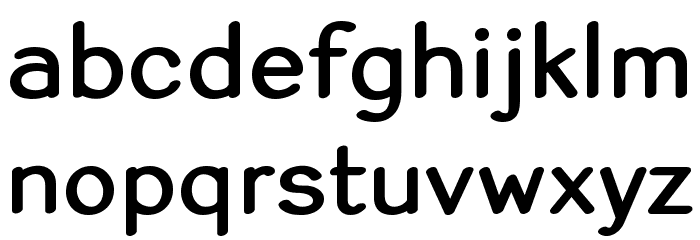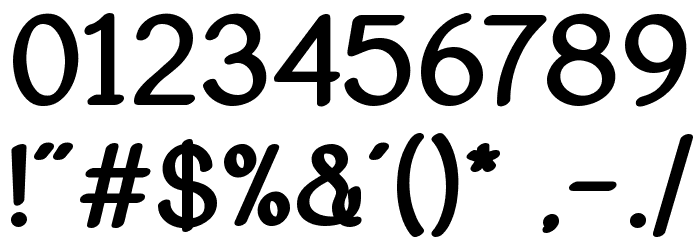
Violina-SemiBold Font
This font exhibits a clean and modern sans-serif style with smooth, rounded edges that give it a friendly and approachable appearance. The characters are well-proportioned, maintaining a consistent height and width, which enhances readability. The uppercase letters are bold and assertive, while the lowercase letters maintain a softer, more subtle presence. The numerals are clear and distinct, making them suitable for various applications. The special characters are designed to blend seamlessly with the rest of the typeface, ensuring a cohesive look across different uses.
A modern sans-serif font with rounded edges and consistent proportions.
- Proposed Projects: Ideal for branding, web design, advertising, and editorial projects where clarity and modernity are key.